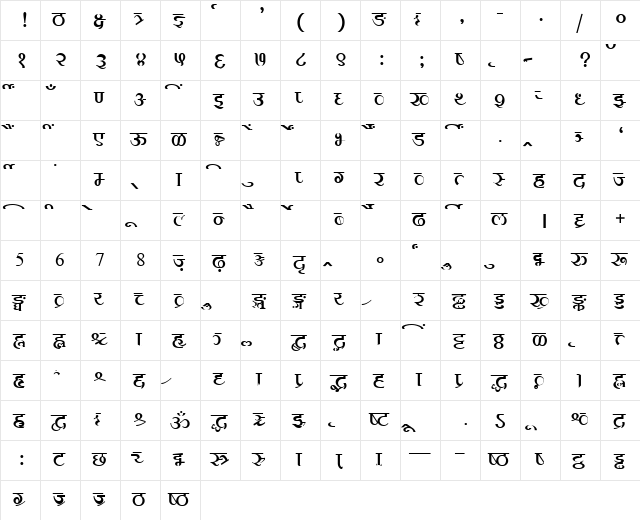
AkrutiDevNavaneet Normal Font Preview
AkrutiDevNavaneet Normal
AkrutiDevNavaneet Normal Font Details
Design Context for AkrutiDevNavaneet Typeface
AkrutiDevNavaneet takes a measured approach to typography — its balanced proportions and neutral character make it a reliable workhorse for both digital and print work.